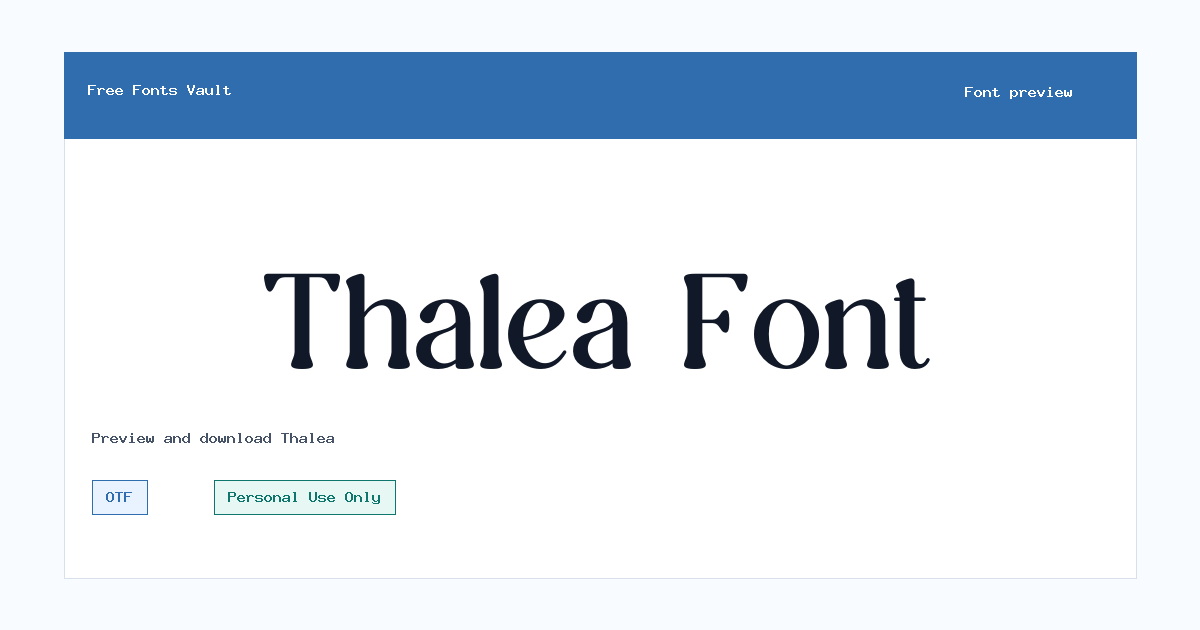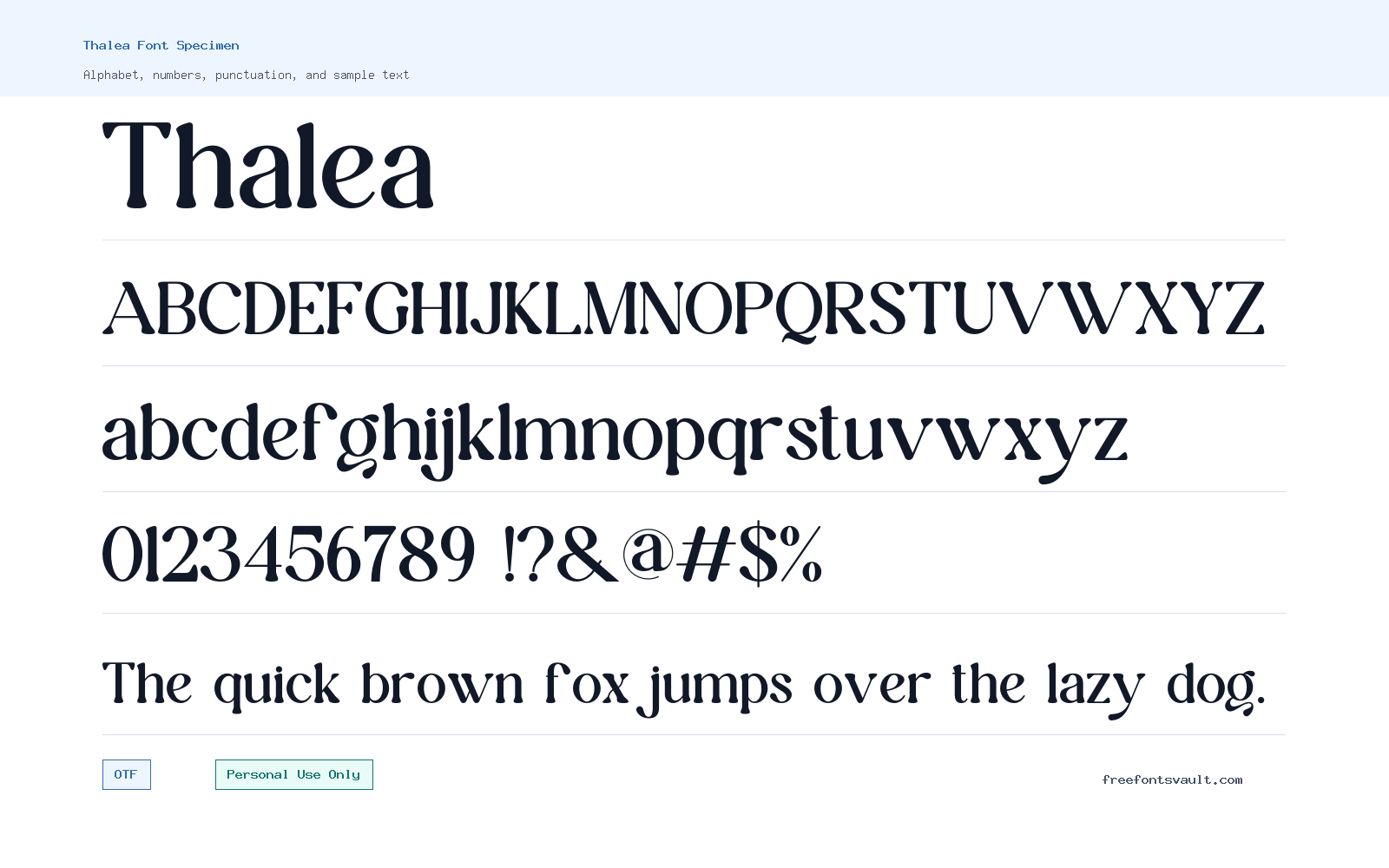
Thalea
- Designer ErmediaStudio
Thalea font.
Thalea is a serif font from ErmediaStudio with a regular OTF style for personal-use projects. It is best approached as a display or short-text font: type your own words in the preview, check the spacing, and make sure the license fits your project before downloading.
About Thalea Font
Thalea is listed as a serif font, so visitors should expect letterforms with finishing strokes rather than a plain sans-serif look. Because only one regular style is included, it is most useful when you need a simple, consistent type choice instead of a full family with bold, italic, or multiple weights. Try it in the preview with the exact text you plan to use, especially if your design depends on names, titles, short quotes, packaging-style wording, or social graphics.
For the best result, test Thalea at several sizes before committing to it. Serif fonts can look very different in a large headline than they do in smaller body copy, and a single regular weight may not give enough contrast for complex layouts. If your design needs hierarchy, pair Thalea with a clean sans-serif for captions, menus, or longer reading text. Keep the serif style as the focus, and avoid forcing it into tiny labels or dense paragraphs unless the preview remains clear.
- Serif style suited to short text, titles, and preview-based testing
- Personal projects, mockups, invitations, quote graphics, and display text
- Headlines, names, short branding drafts, and decorative typography tests
Who designed Thalea?